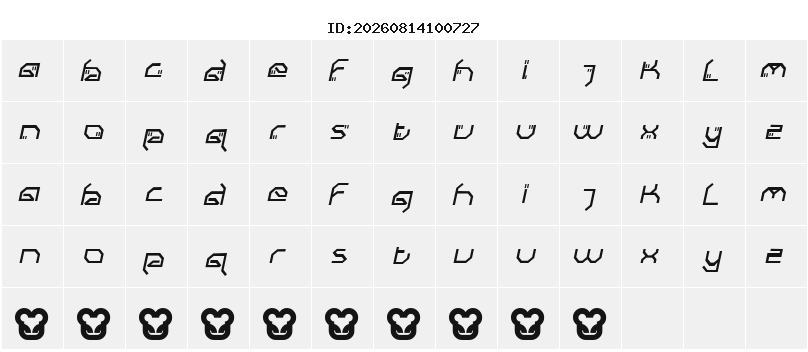
• Font Name: Submit
• Font ID: Macromedia Fontographer 4.1.5 Submit Italic
• Full Font Name: Submit Italic
• PostScript Name: SubmitItalic
About Submit.ttf
Submit.ttf is a modern, elegant sans-serif font designed for ultimate readability and visual harmony. Perfect for branding, headlines, web design, and print materials.